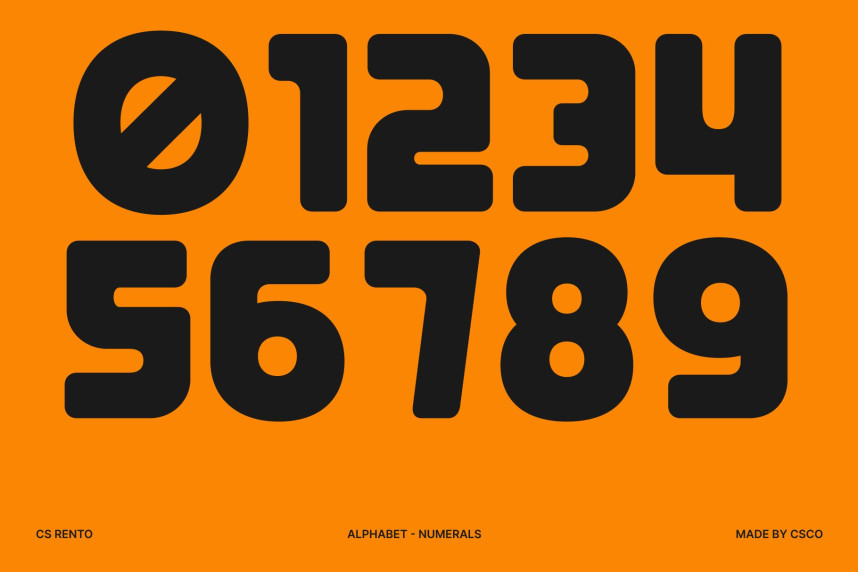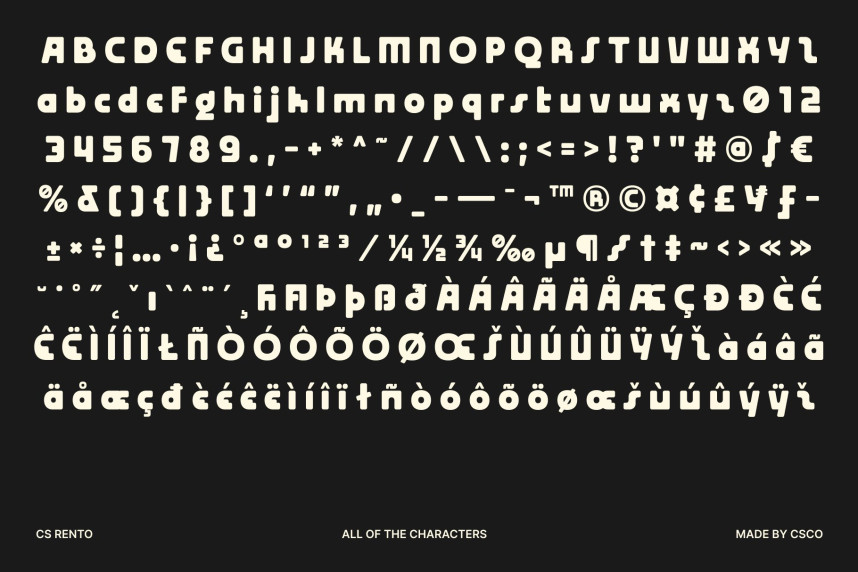
CS Rento Font
CS Rento Font – Bold Display Font with Futuristic Calm Bold Geometry with Soft Character. This is a bold display font built from strong geometric shapes combined with smooth, soft lines. Its unique character designs create a confident visual impact, while the rounded details introduce a calming and approachable feel. This thoughtful balance allows the font to stand out clearly without appearing rigid or aggressive.